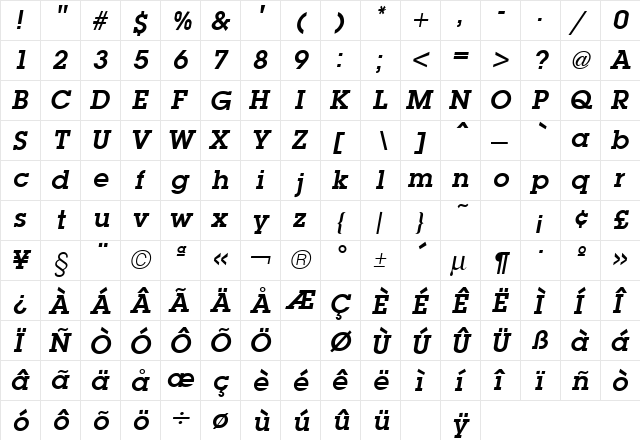
Lubalin Italic
Design Context for Lubalin Typeface
Lubalin takes a measured approach to typography — its balanced proportions and neutral character make it a reliable workhorse for both digital and print work. Its italic angle brings a sense of urgency and motion to the letterforms.